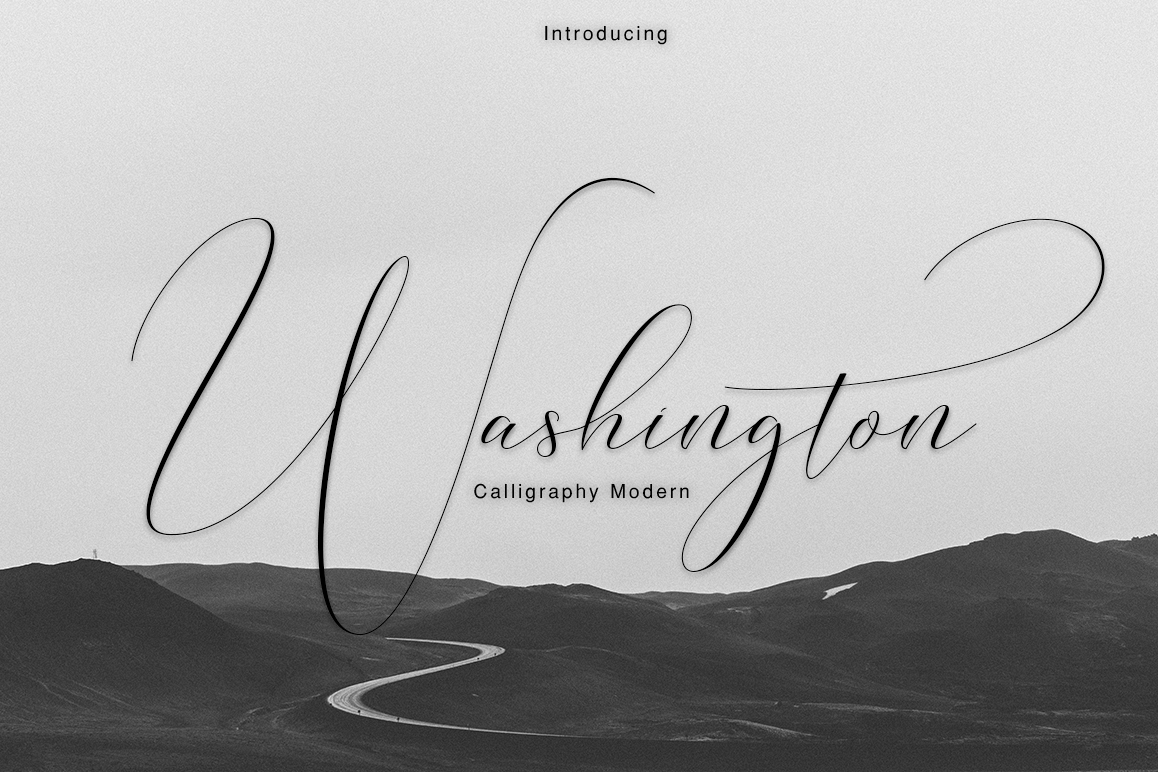
Washington Calligraphy Modern
Washington
NEW ! Washington Script. It's an modern typeface. Washington Script, including swashes, ligatures,Alternate and International support for most Western Languages is included.This one should make your designs instantly professional and jaw-dropping! Be a perfect professional in a minute and start creating modern designs like ads, sales, logos, branding, posters, social media text overlays today!The ZIP file are include the following :